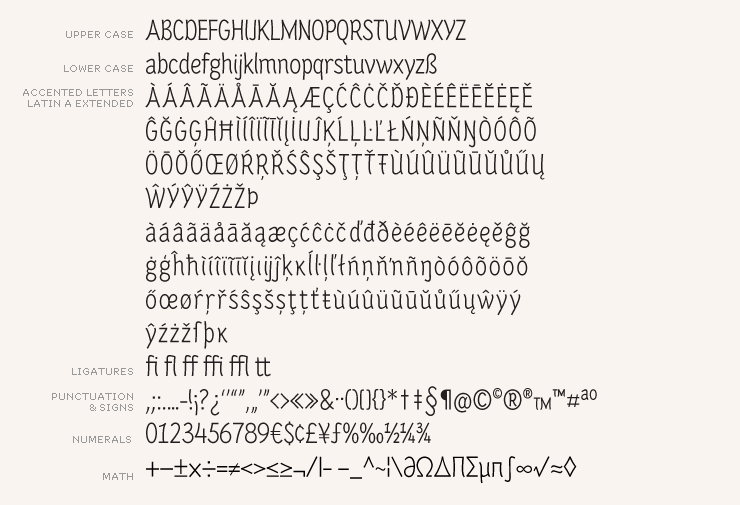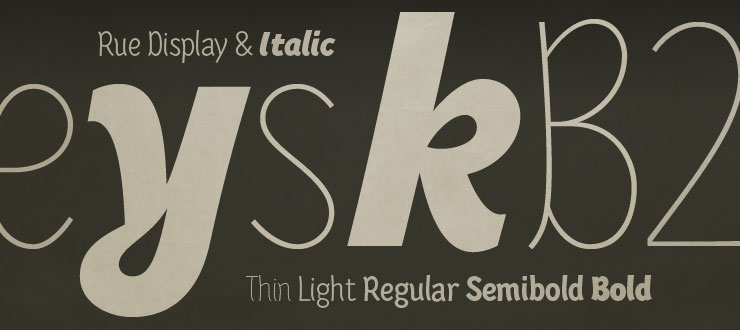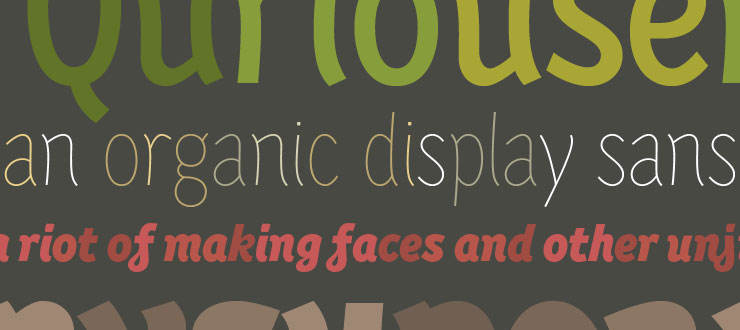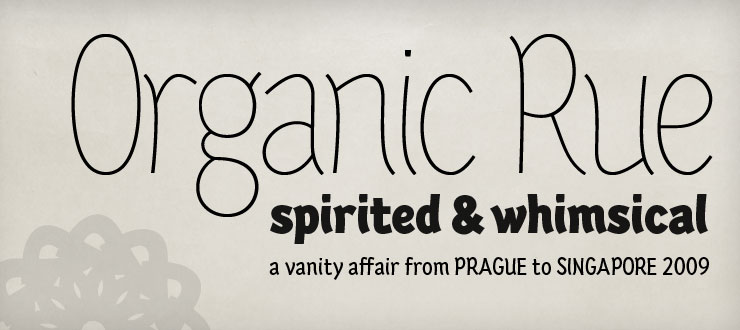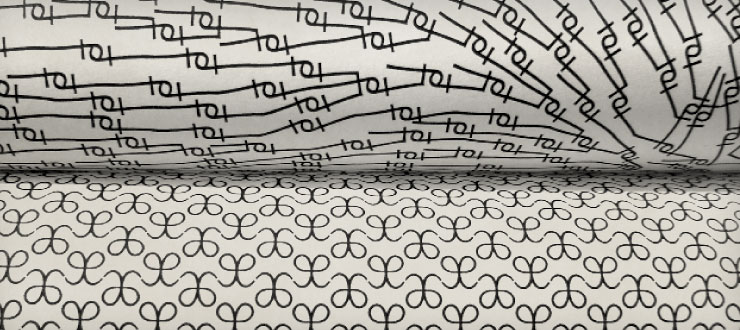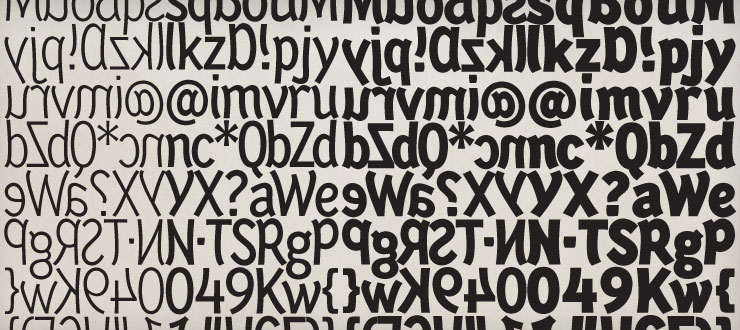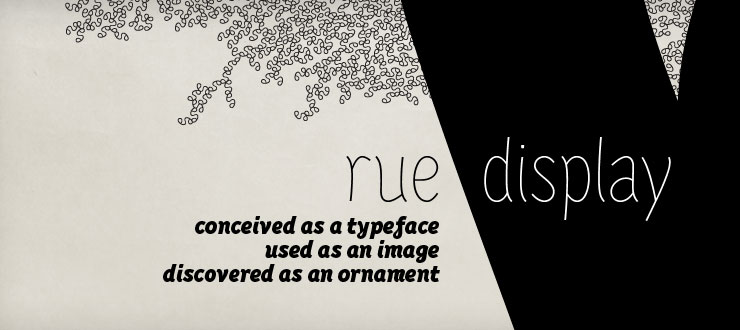
Rue is an organic, casually ornamental, narrow-faced sans serif. It is a display type structured with random traces of calligraphic tendencies. It does not begin with any noble ideals, other than to mediate between the muse of imagination and the act of realization.
The spirited and exploratory design is the materialization of a feeling about fonts as a family of organisms taking on a life of its own, in work and play. Rue is the epitome of vanity and indulgence which seems to purpose itself well in aesthetics, wellness and botanicals. It’s whimsical quality also suggests applications in the form of gifts and ornamentation.
In retrospect, Rue was conceived as a typeface, used as an image and discovered as an ornament. It comes in 5 weights of light, regular, medium, semibold and bold, and their matching italics.